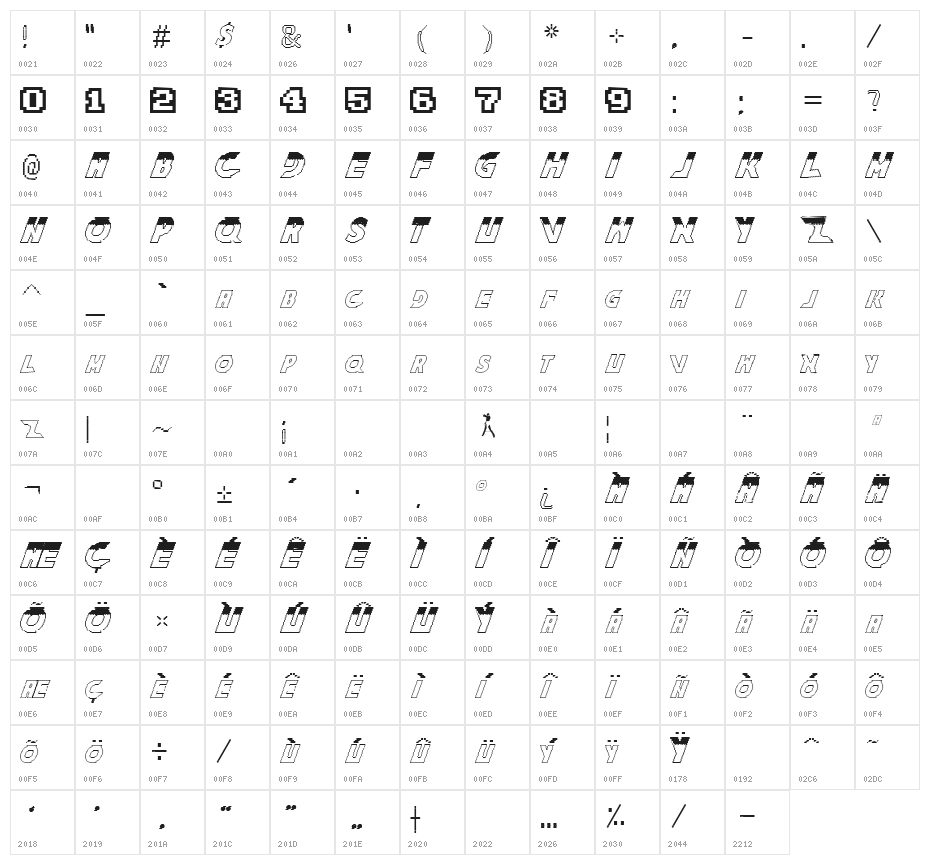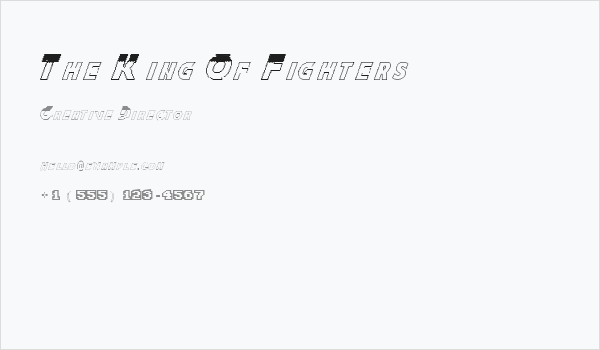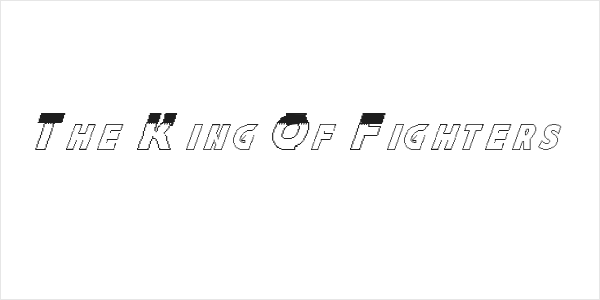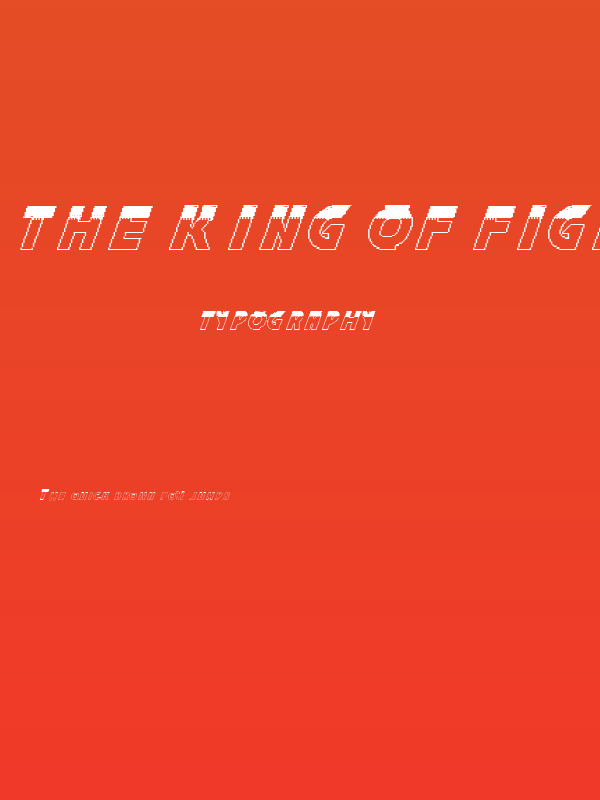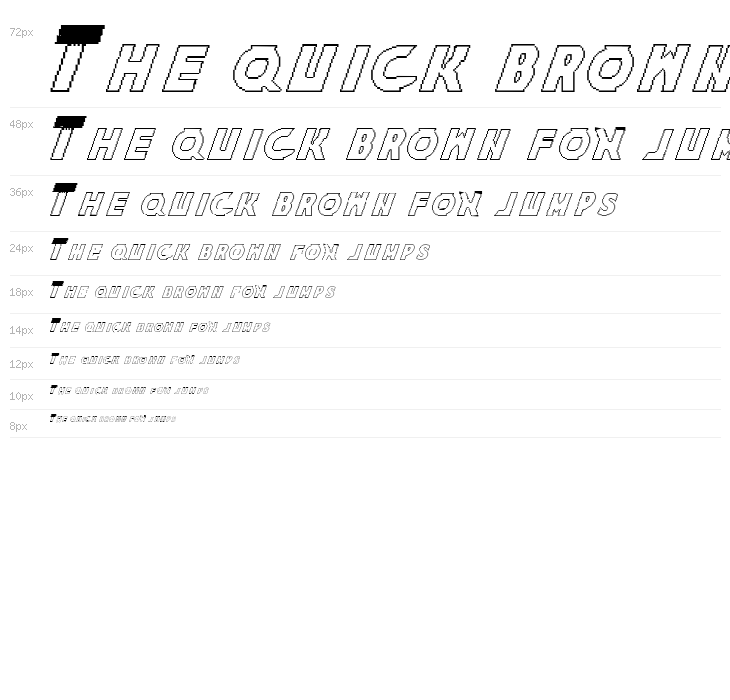
The King Of Fighters Font
The King Of Fighters Description
This font features a bold, angular design with a futuristic and dynamic appearance. The uppercase letters are characterized by sharp edges and a slight slant, giving them a sense of motion and energy. The numbers are blocky and robust, maintaining the boldness of the overall style. Special characters are uniquely styled to match the angular theme, providing a cohesive look across all glyphs. The font's distinct style makes it suitable for projects that require a strong, impactful visual presence.
| Overall Style | Futuristic, Dynamic |
| Proposed Projects | Ideal for video game titles, movie posters, sports branding, and dynamic logo designs. |